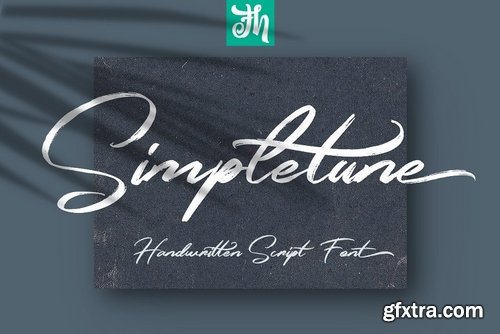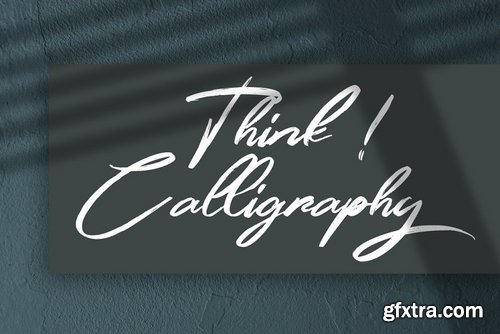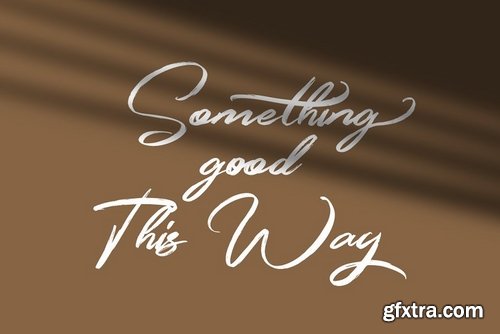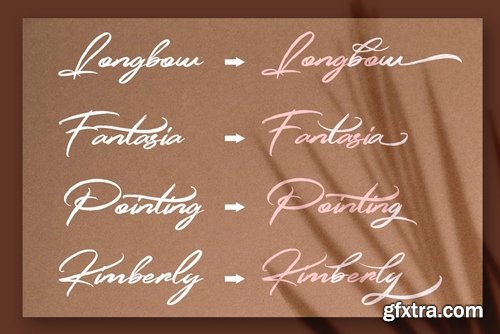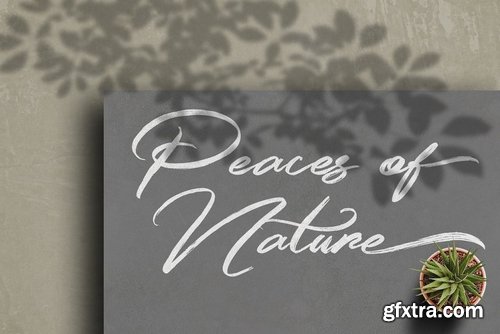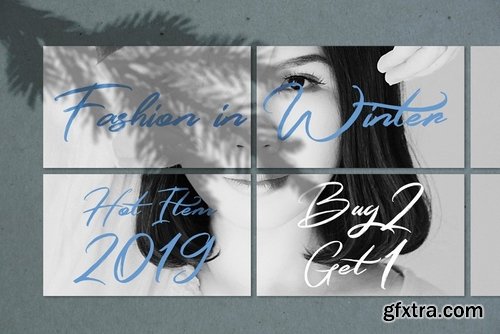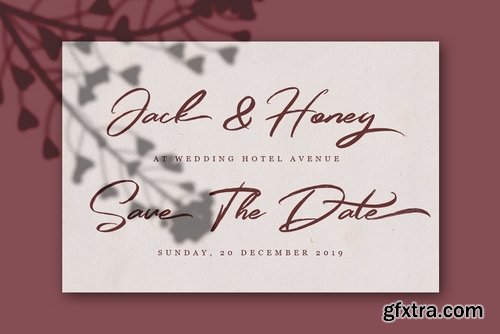
Simpletune is handwritten script font with dry brush and signature style. Suitable for design, element design, wedding, event, t-shirt, logo, badges, sticker, and awesome work, etc...